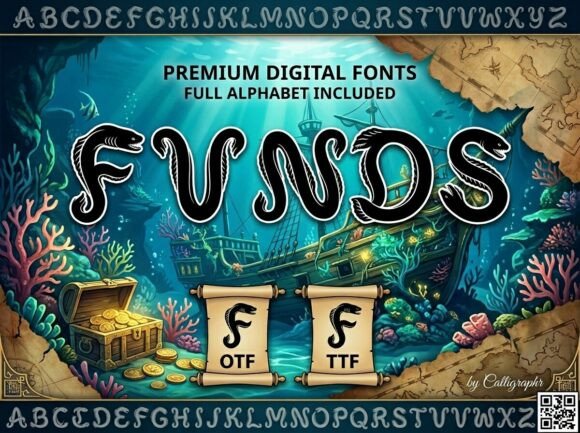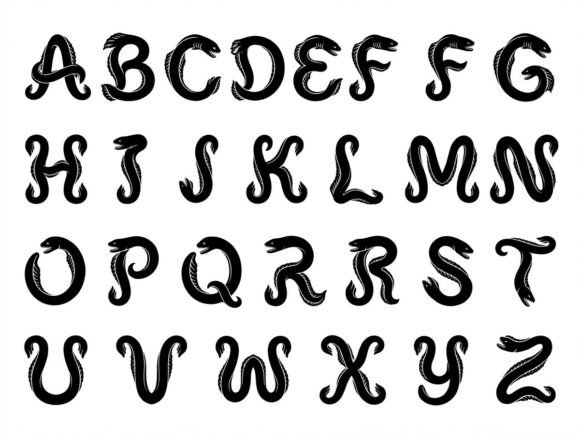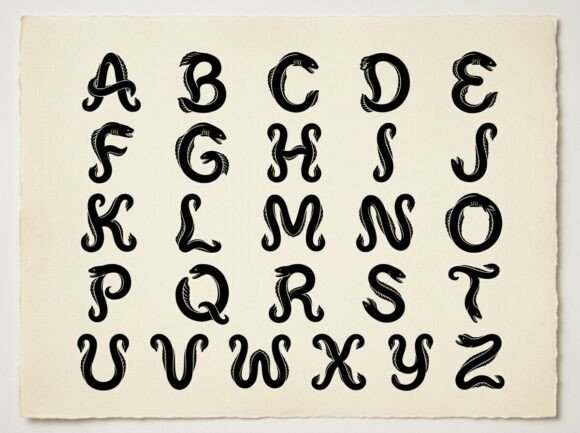
The Ultimate Guide to Funds Font: Elevate Your Designs with a Stunning Display Font
Have you ever been in the middle of a design project, and suddenly, you’re stuck on finding the perfect font? I recall a recent experience where I was working on a branding project for a luxury client, and I just couldn’t find a font that screamed elegance and sophistication. That’s when I stumbled upon the Funds Font, a game-changing decorative display font that instantly elevated my design.
An Honest Review of Funds Font
- ✨ Unique artistic elements that make your designs stand out
- ✅ Strong visual personality that’s perfect for bold headlines and artistic logos
- 💼 Versatile enough for various design projects, from packaging to digital media
- 🎨 A professional and polished finish that adds a touch of sophistication to your work
⚠️ One thing to note is that Funds Font is an ALL-CAPS (Uppercase Only) display typeface, which means it doesn’t include lowercase letters. While this might seem limiting, it’s actually a deliberate design choice to focus on high-impact headlines, logos, and decorative initials.
🤔 Another thing to consider is that Funds Font requires a bit of exploration to get the most out of its OpenType features and glyphs. But don’t worry, we’ll dive into that later.
The Designer Inspiration Behind Funds Font
While the true story behind Funds Font remains a mystery, it’s easy to imagine that the designer was inspired by the world of luxury branding and high-end advertising. Perhaps they wanted to create a font that would help designers and creatives stand out in a crowded market, or maybe they simply wanted to push the boundaries of typographic design.
| Is Funds Font suitable for body text? | No, Funds Font is a display font designed for headlines, logos, and decorative initials. It’s not recommended for body text. |